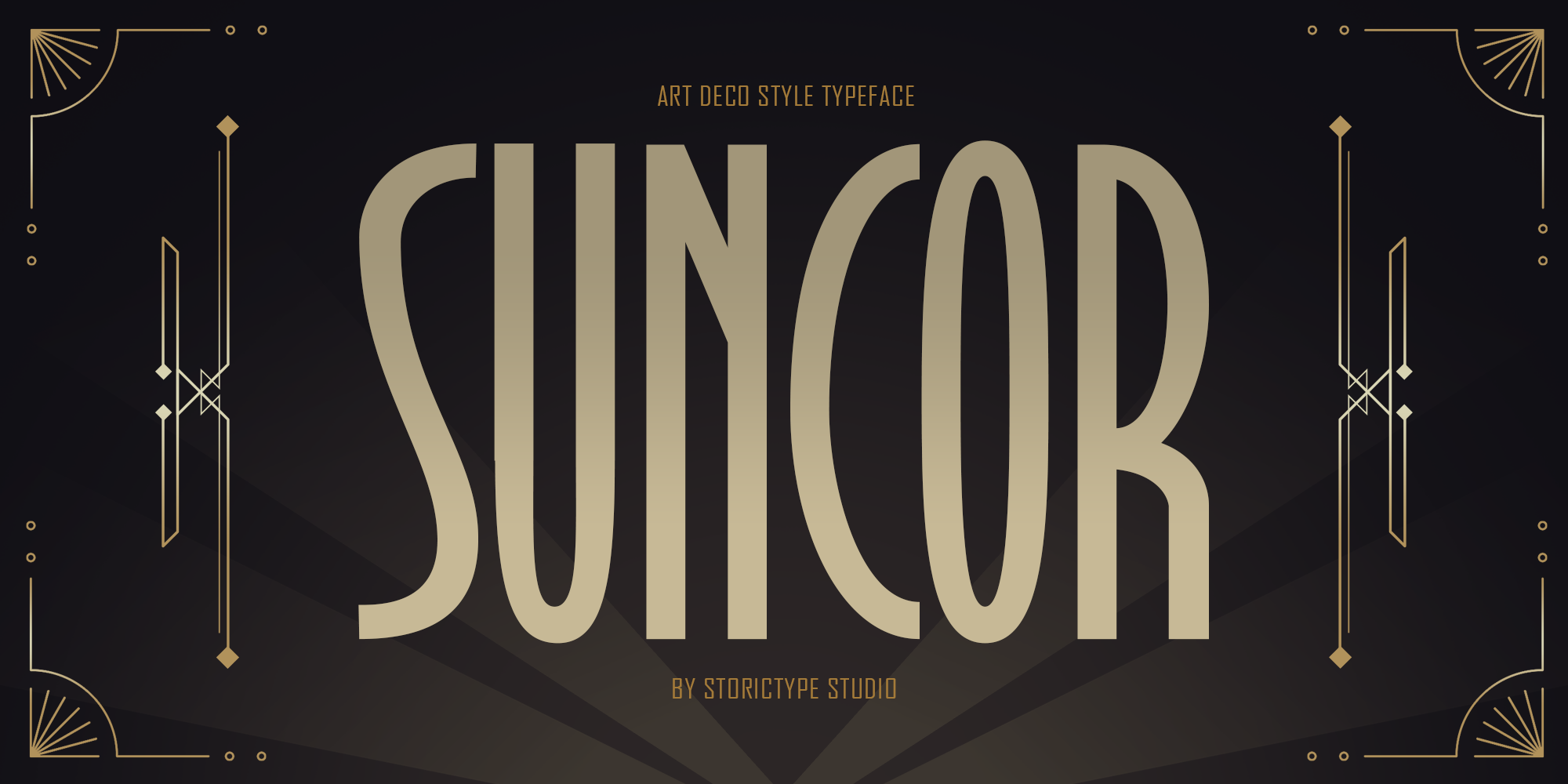
Suncor Font is ideal for energy company branding, solar power marketing materials, renewable energy presentations, corporate annual reports, industrial websites, engineering firm logos, infrastructure project documentation, utility company communications, environmental sustainability campaigns, technology sector branding, and professional business correspondence.
This font is exciting because it radiates strength and reliability while maintaining a clean, modern appearance that perfectly represents forward-thinking industries and sustainable energy solutions. The bold, confident letterforms convey corporate authority and trustworthiness, essential qualities for companies operating in critical infrastructure sectors. Each character demonstrates precision engineering in its design, reflecting the technical excellence and innovation that drives modern energy and industrial enterprises.
The Suncor Font family includes multiple weights from light to heavy, with corresponding italic styles, condensed variants, and extended character sets supporting international languages. Professional versions often feature enhanced spacing options, corporate-specific ligatures, and optimized screen rendering for digital applications across various platforms and devices.
Whether you're developing energy sector branding, creating industrial marketing materials, or designing corporate communications for technical industries, Suncor Font Free Download delivers the professional credibility and modern sophistication your project requires. This typeface combines industrial strength with contemporary elegance, making it perfect for companies that need to project both reliability and innovation. The font's versatility ensures consistent brand communication across all media, from technical documentation to executive presentations. Business professionals will appreciate how this font enhances corporate messaging with its authoritative yet approachable character that builds trust with stakeholders.